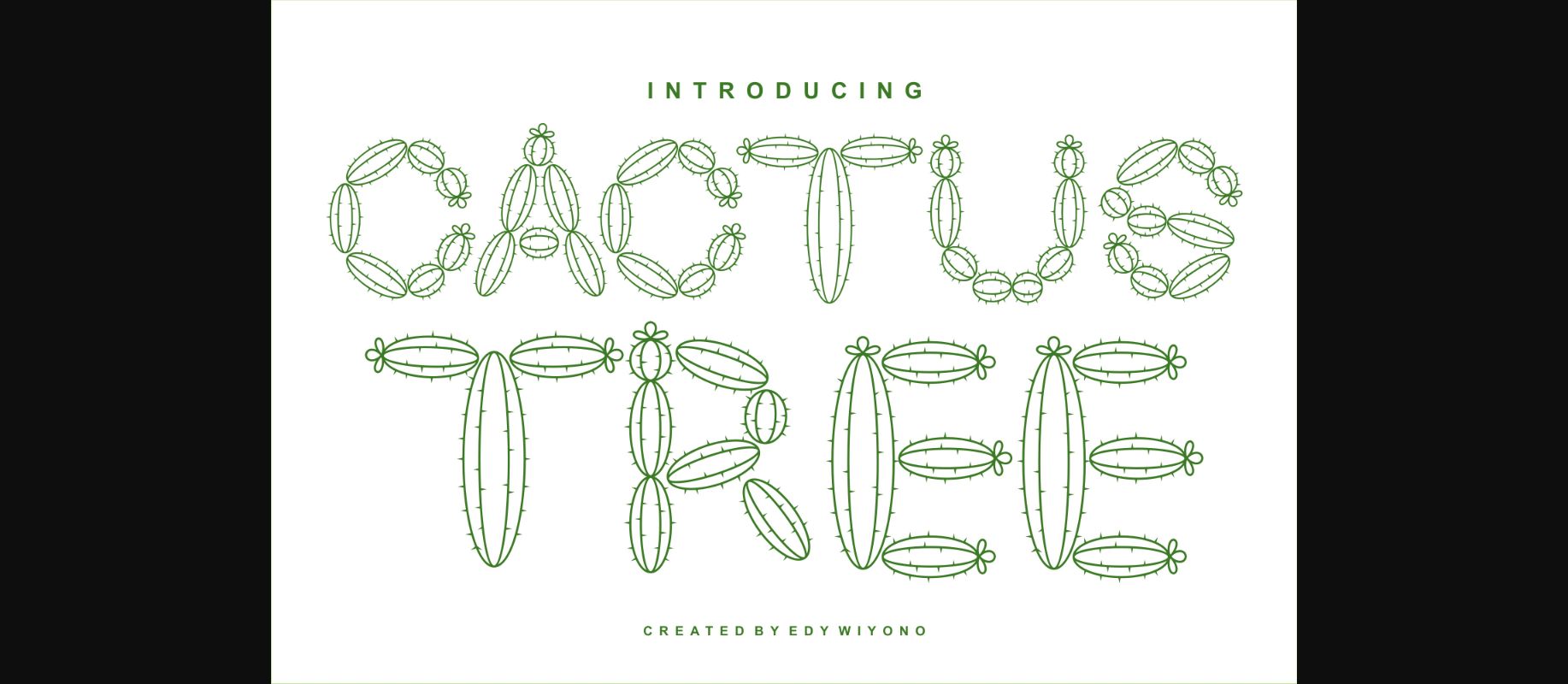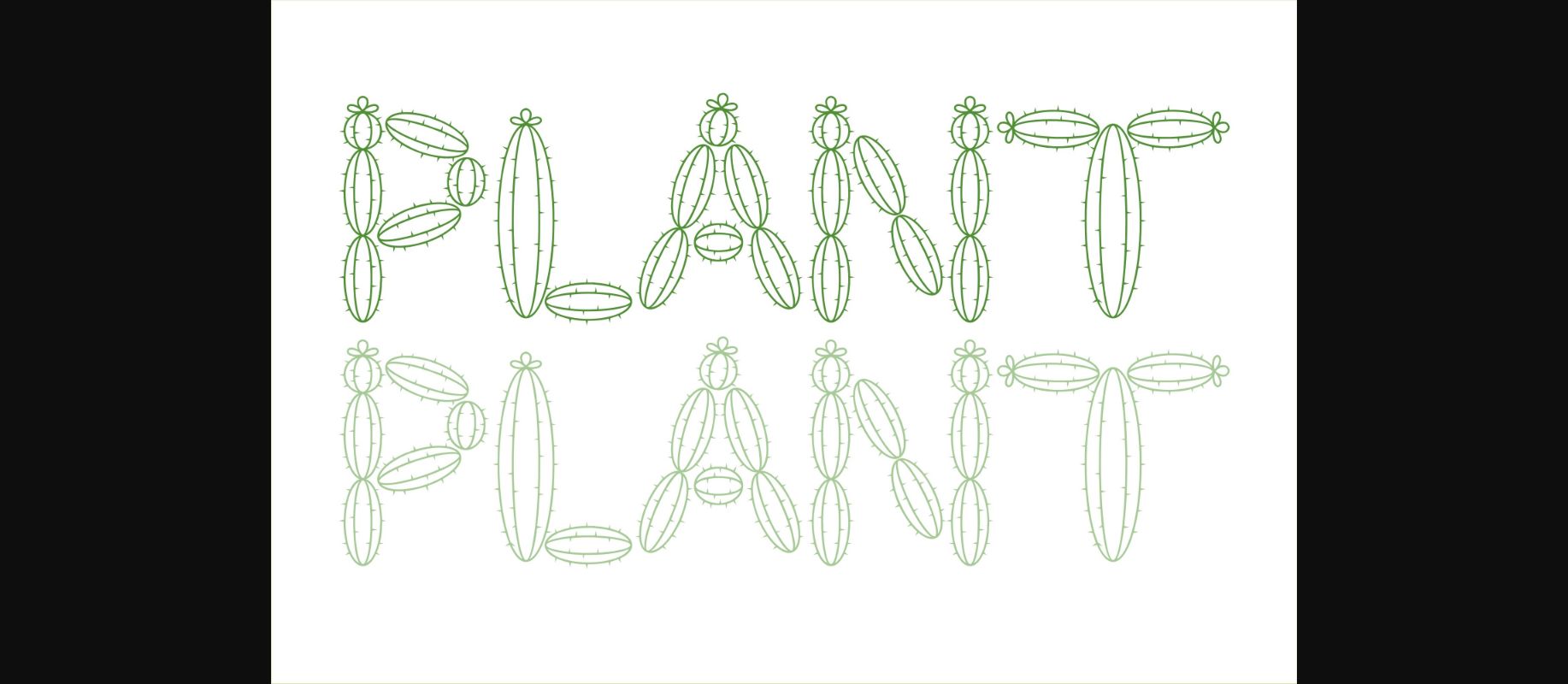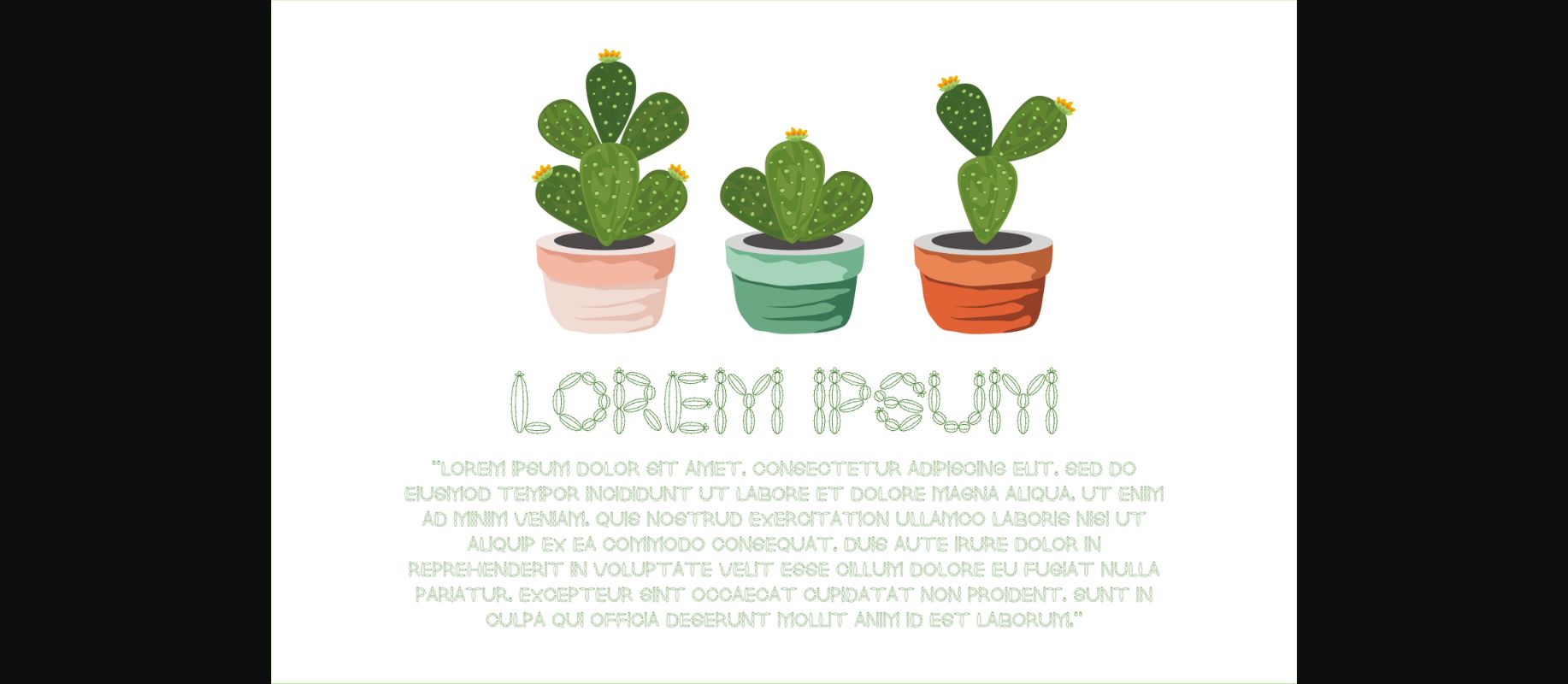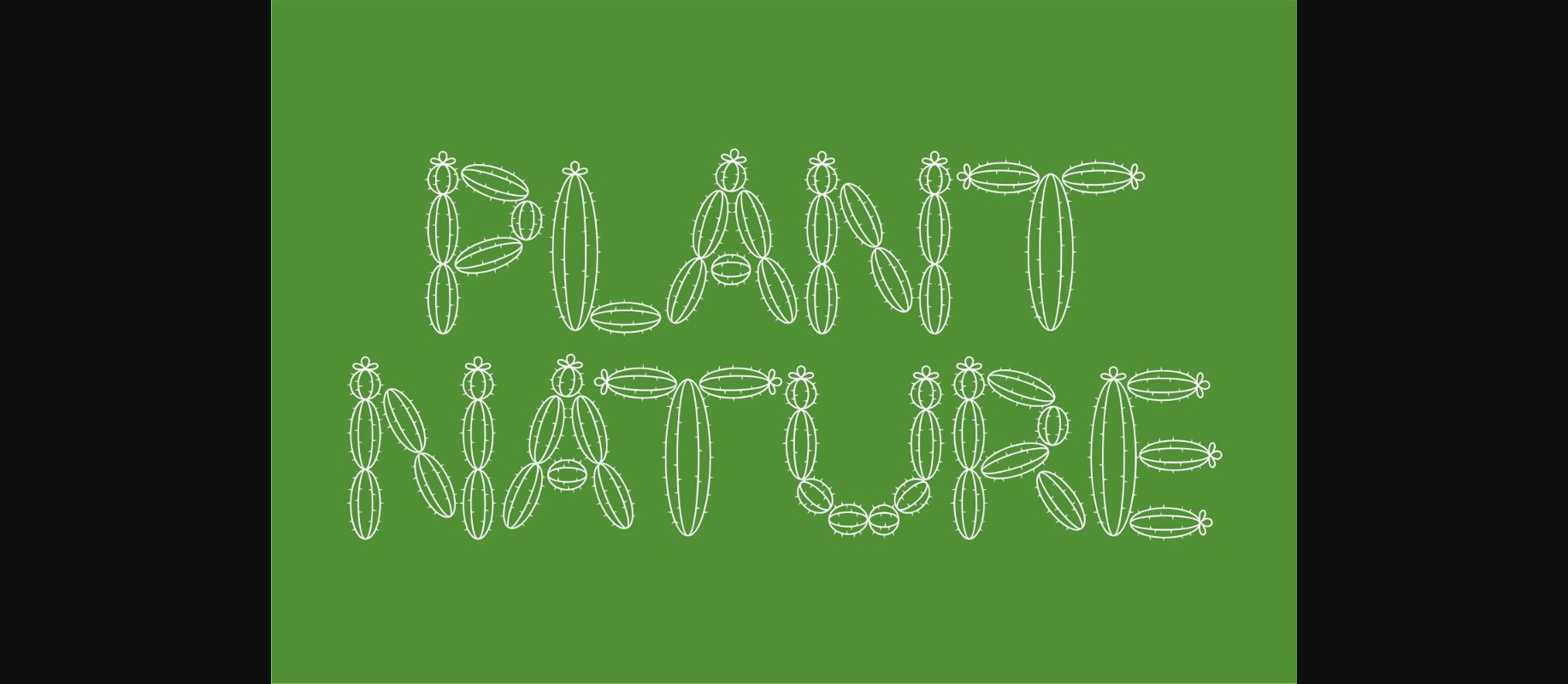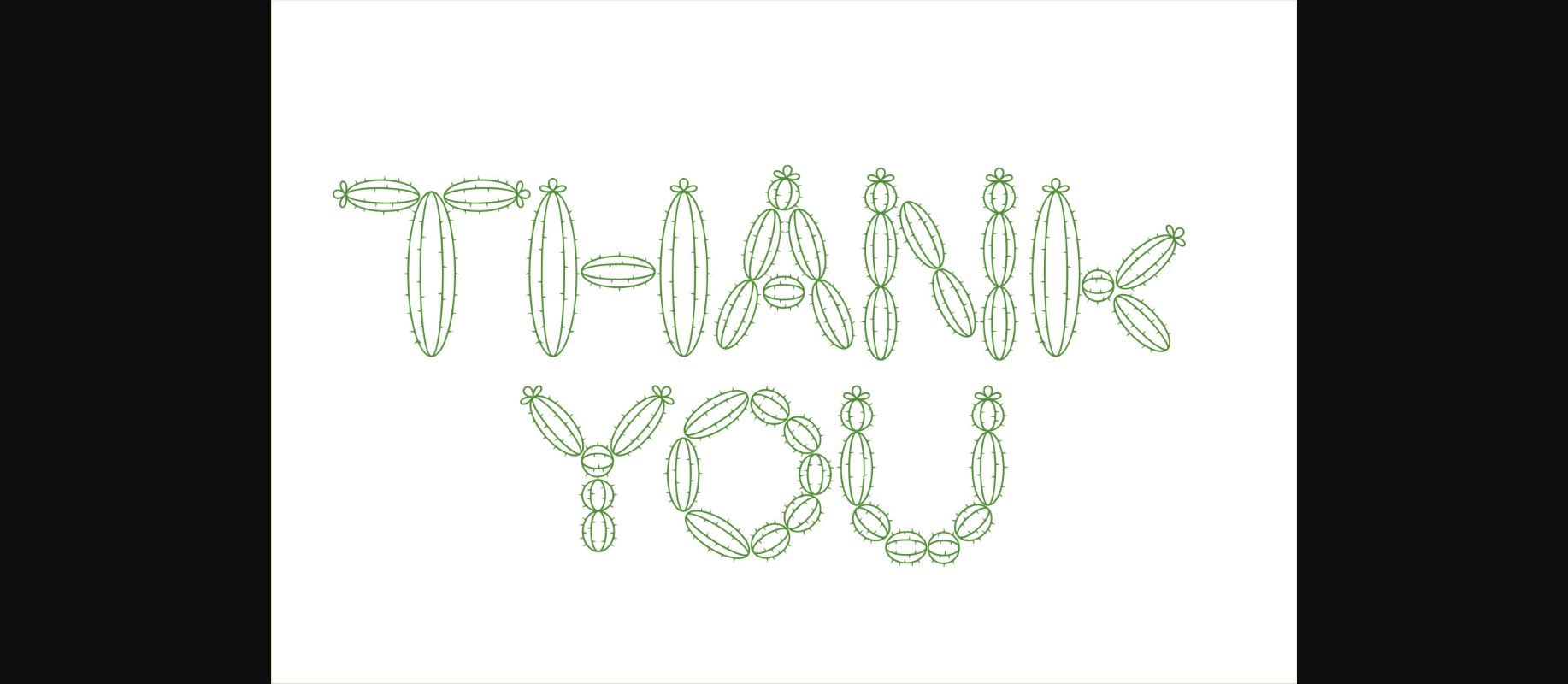
Cactus Tree is a decorative typeface with a cactus plant theme. This font is very suitable for cartoon-themed designs, and illustrations, and very suitable for environmental themes.